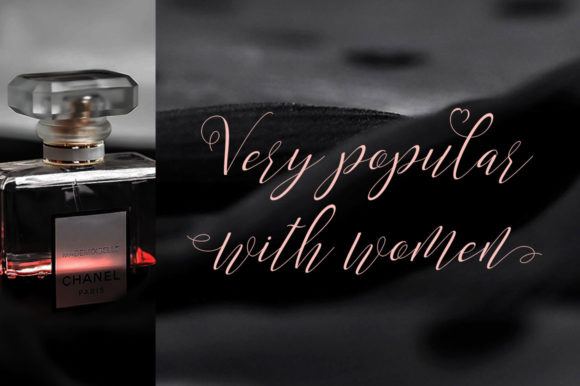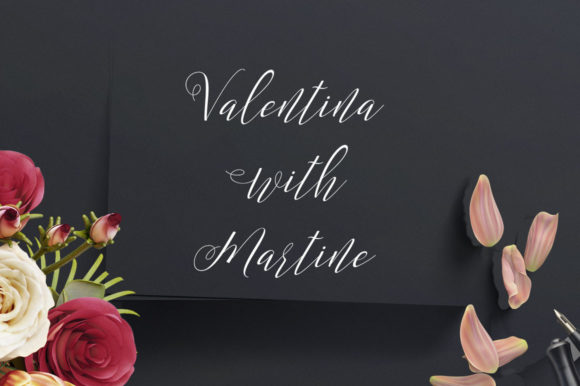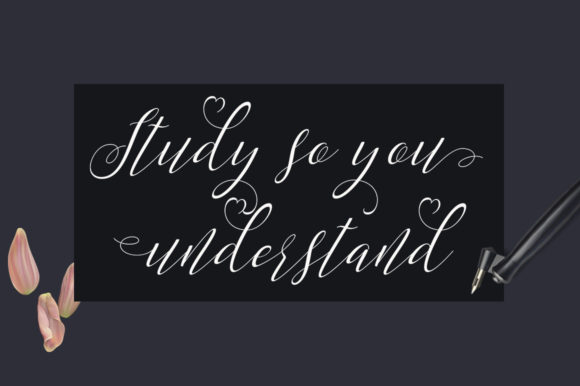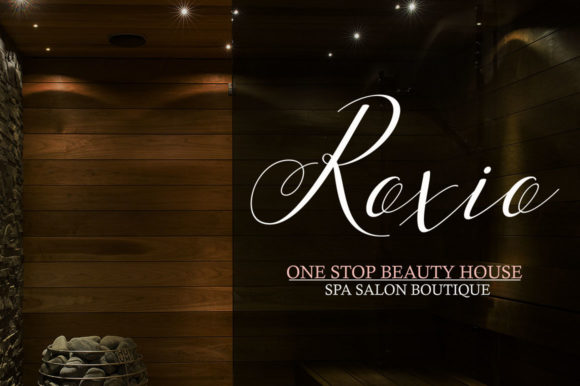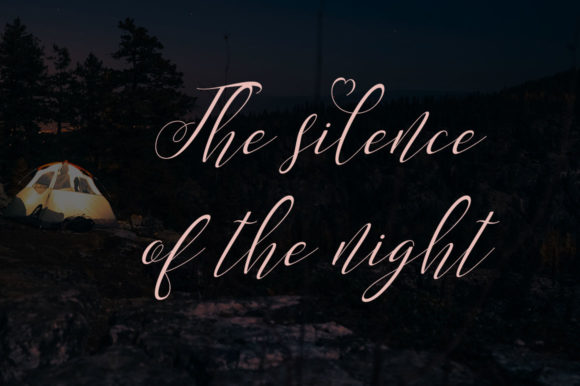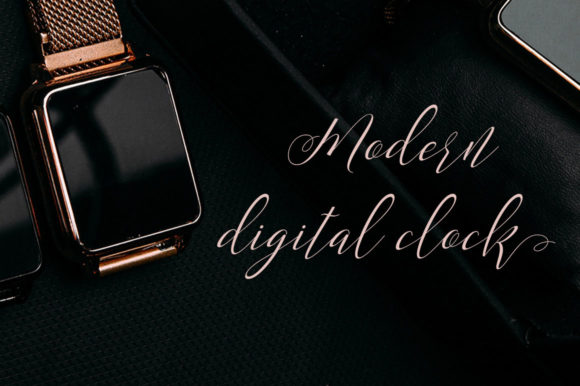
Introduction to Mordane Font
Have you ever been stuck on a design project, trying to find that perfect font to give it the luxury feel it deserves? I know I have. It’s like searching for a needle in a haystack, but then, suddenly, you stumble upon that one font that makes everything click into place. For me, that font was the Mordane Font, a stunning light handwritten font that added a touch of sophistication to any design project.
As a designer, you know how valuable a high-quality font can be. It’s not just about aesthetics; it’s about conveying the message and feeling you want to evoke in your audience. With the Mordane Font, you can create a truly unique and captivating visual experience that will leave a lasting impression. And the best part? It’s available for free download, making it an essential design resource for any creative project.
Key Features of Mordane Font
- Unique, elegant script font with a transparent background, perfect for overlaying on images or videos.
- Comes in 5 different styles, including regular, bold, italic, bold italic, and a special script style.
- Includes a wide range of languages, making it suitable for international creative projects.
Honest Review: Mordane Font
As a designer, I’m always on the lookout for high-quality design resources to elevate my creative projects. Recently, I stumbled upon the Mordane Font, and I must say, it’s been a game-changer for me. The Mordane Font offers a free download option, making it an excellent resource for designers who are working on a budget.
- ✨ High-quality design: The Mordane Font boasts a stunning, modern design that’s perfect for any creative project.
- ✨ Transparent background: The font’s transparent background allows for seamless integration with any design element, giving me the flexibility to create unique and eye-catching compositions.
- ⚠️ Limited character set: The Mordane Font has a relatively limited character set, which may not be suitable for designers who need a wide range of characters for their projects.
- ⚠️ No bold or italic options: Unfortunately, the Mordane Font does not come with bold or italic options, which may limit its usability in certain design scenarios.
Overall, I’m thoroughly impressed with the Mordane Font. Its high-quality design, transparent background, and free download option make it an excellent resource for designers. While it may have some limitations, I believe it’s a valuable addition to any design library.
Getting the Most Out of Mordane Font
Here are some tips for getting the most out of Mordane Font: experiment with different font sizes and styles, use the font in combination with other design elements, and take advantage of the font’s transparent background feature to create unique and eye-catching designs.
Common Use Cases for Mordane Font
The Mordane Font is a popular choice for various creative projects, including graphic design, digital art, and print materials. Its high-quality design and transparent background make it an ideal choice for creating visually appealing and professional-looking designs.